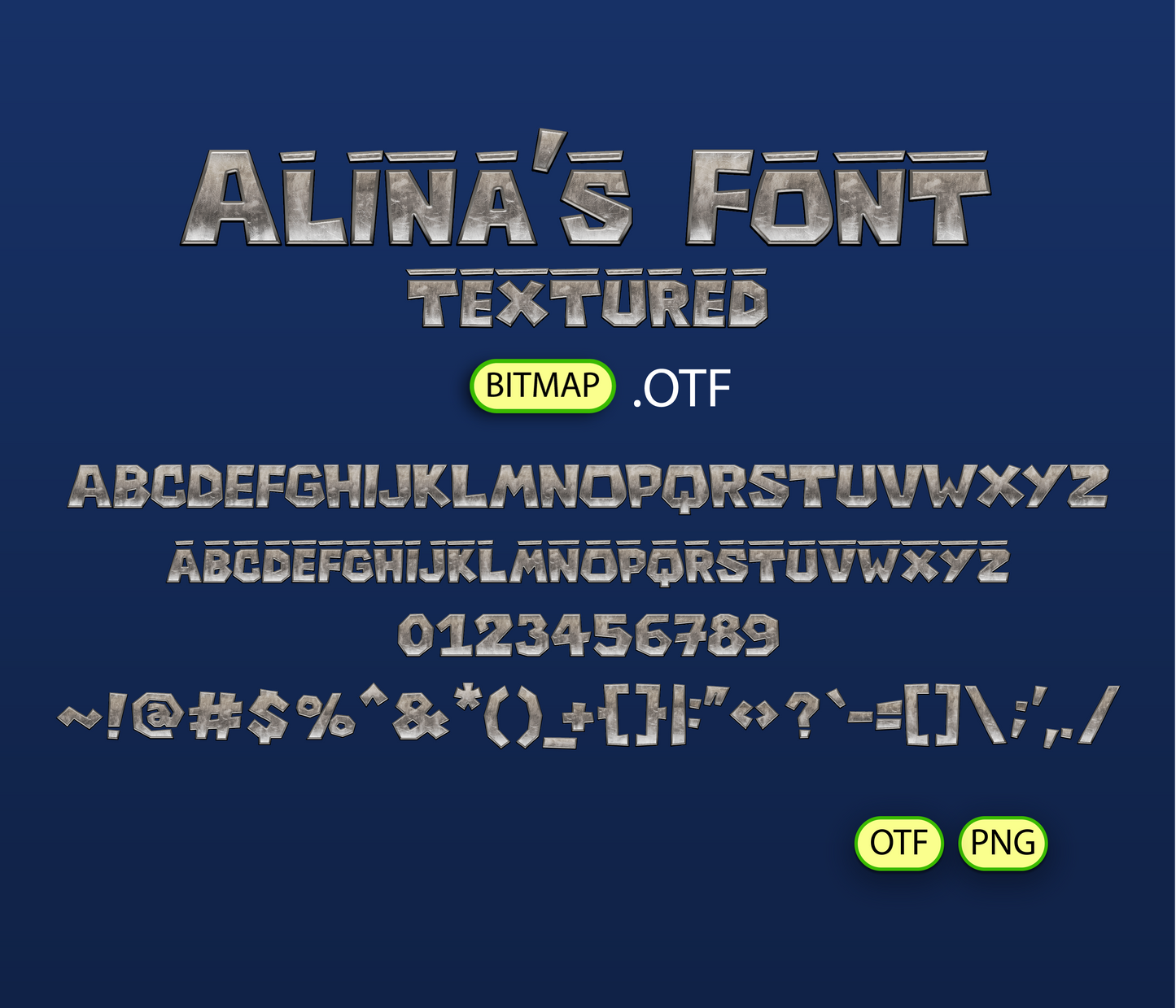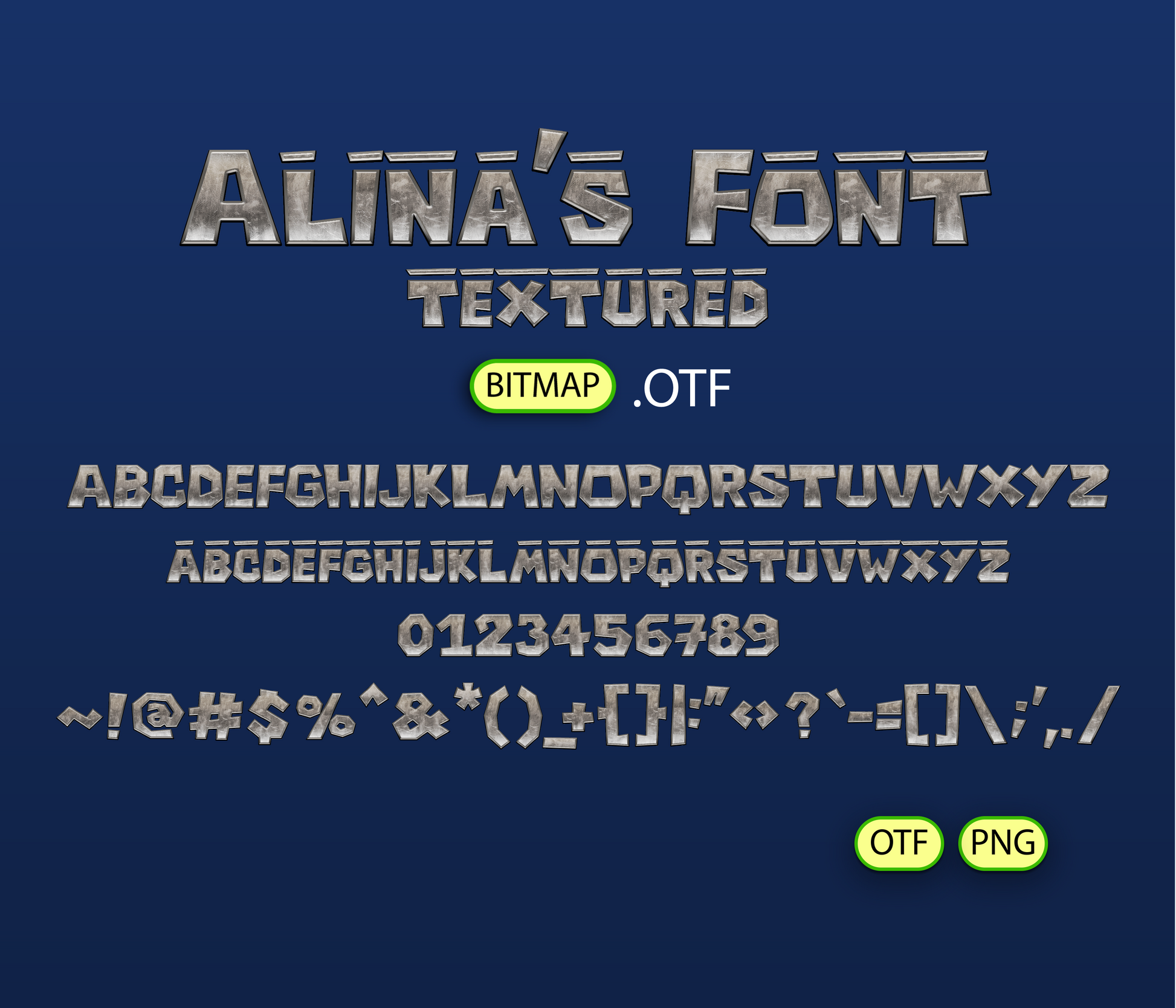
Virtual Construction Platform Font Textured
Step into the innovative world of user-generated experiences with our Virtual Construction Platform Font Textured, capturing the essence of community-built environments and boundless creativity. Perfect for online gaming fans, celebration coordinators, digital producers, and design specialists, this font brings the striking, energetic spirit of multiplayer creation stories to your projects. Create attention-grabbing invitations, commercial goods, or web content with the vibrant character of collaborative world-building narratives.
Bold Typography for Interactive Design & Youth Projects
Our Virtual Construction Platform Font Textured features commanding, stylized letterforms with geometric surface patterns reflecting the world of avatar customization and interactive environment settings.
- Event Promotions: Create attention-grabbing invitations, displays, and promotional materials for gaming celebrations, digital meetups, and social events that capture the spirit of collaborative creation entertainment
- Merchandise Design: Perfect for clothing, wall prints, removable graphics, and novelties that showcase the striking aesthetic of virtual building themes
- Digital Media: Enhance internet platforms, content channels, and communication networks with energetic header designs and imagery that express the thrill of open-world exploration
- Creative Content: Add signature flair to fan illustrations, avatar artwork, and imaginative projects inspired by community-driven experience tales
- Personal Projects: Bring inventive vitality to memory books, handcrafted items, and living space decoration inspired by the world of endless possibility characters
Many seek an online font generator to mimic the look of the Virtual Construction Platform Font. Steer clear! No generator can match the quality of our font, which comes in a clean outline version perfect for cutting machines.
Our font pays tribute to the world of collaborative creation stories and interactive gaming culture, empowering your projects with its striking and energetic spirit. Whether crafting fan materials, designing youth-oriented products, or adding an inventive touch to personal projects, this font communicates the dynamic essence of user-generated entertainment. Ready to inject creative building excitement into your creations? This font is your key to attention-grabbing, impactful design.